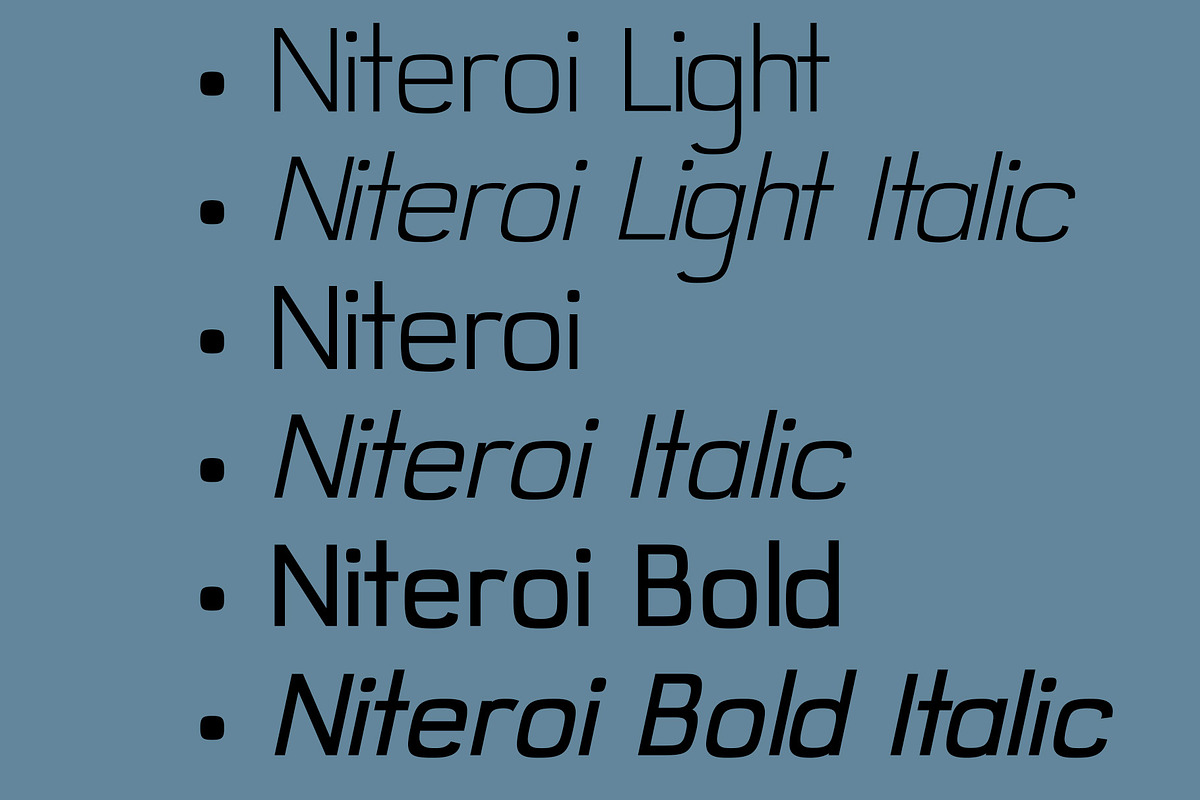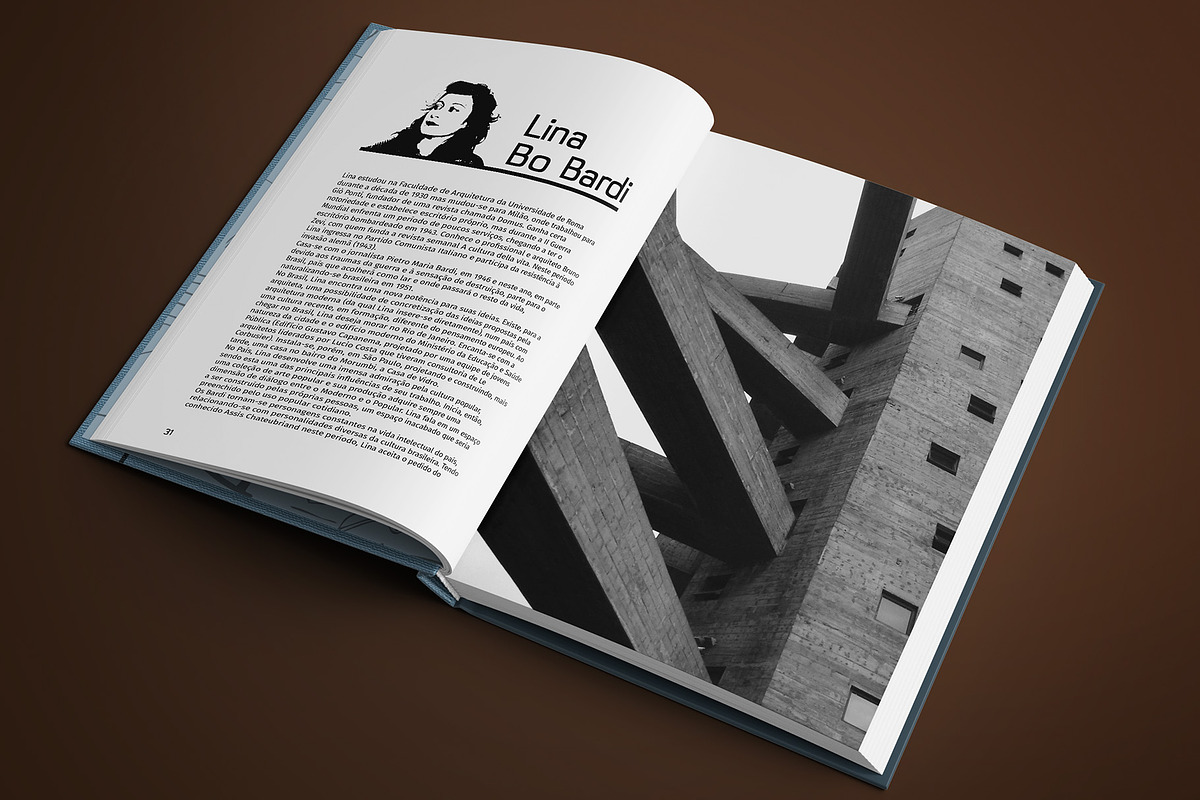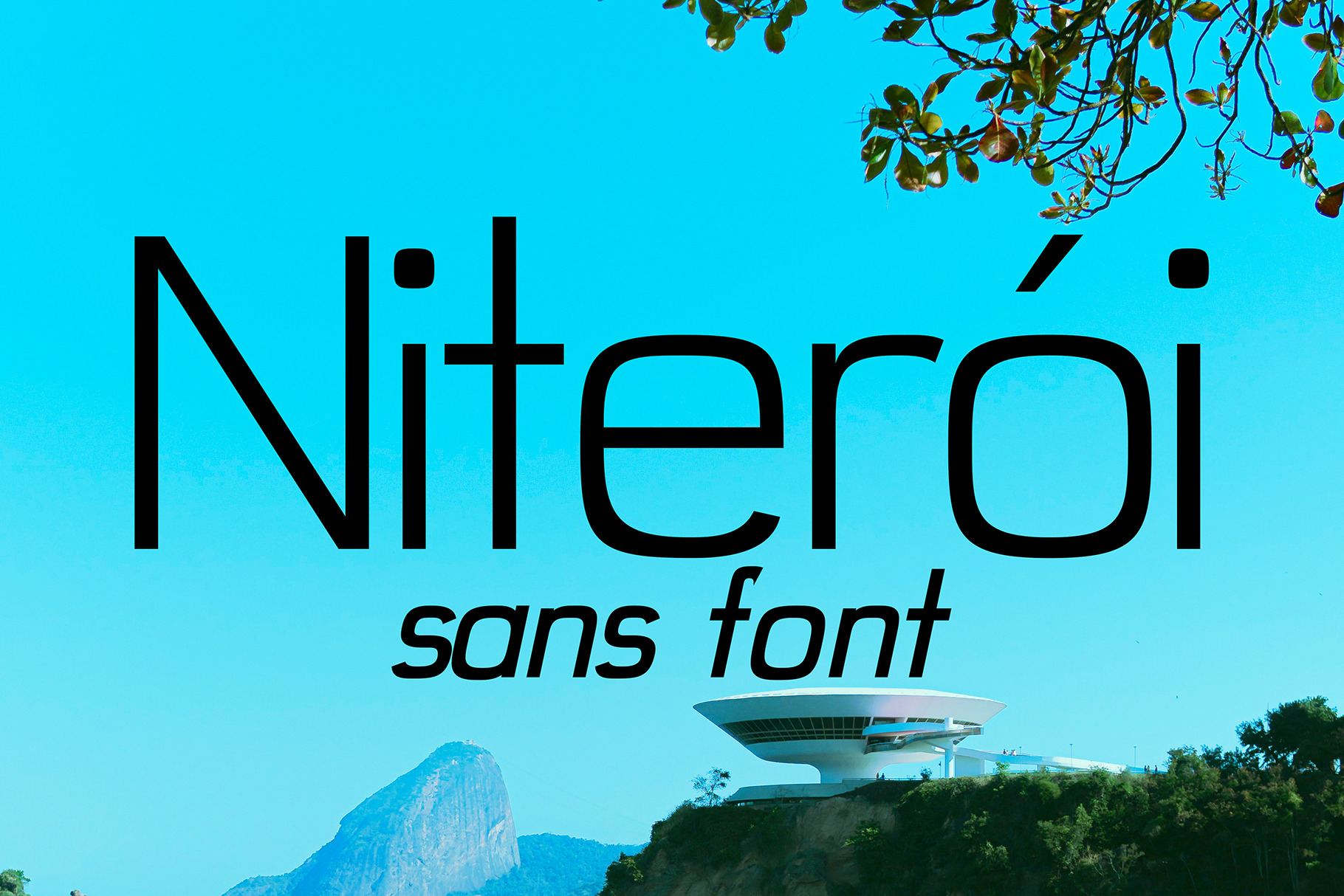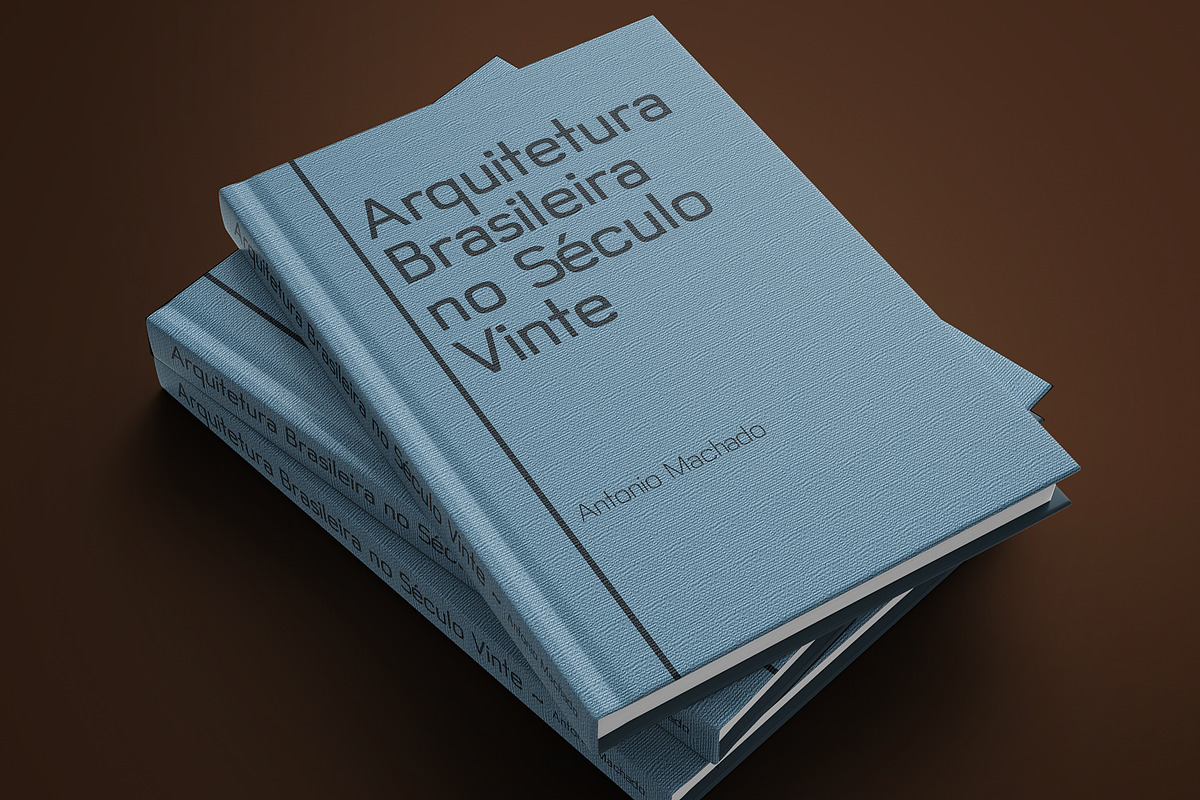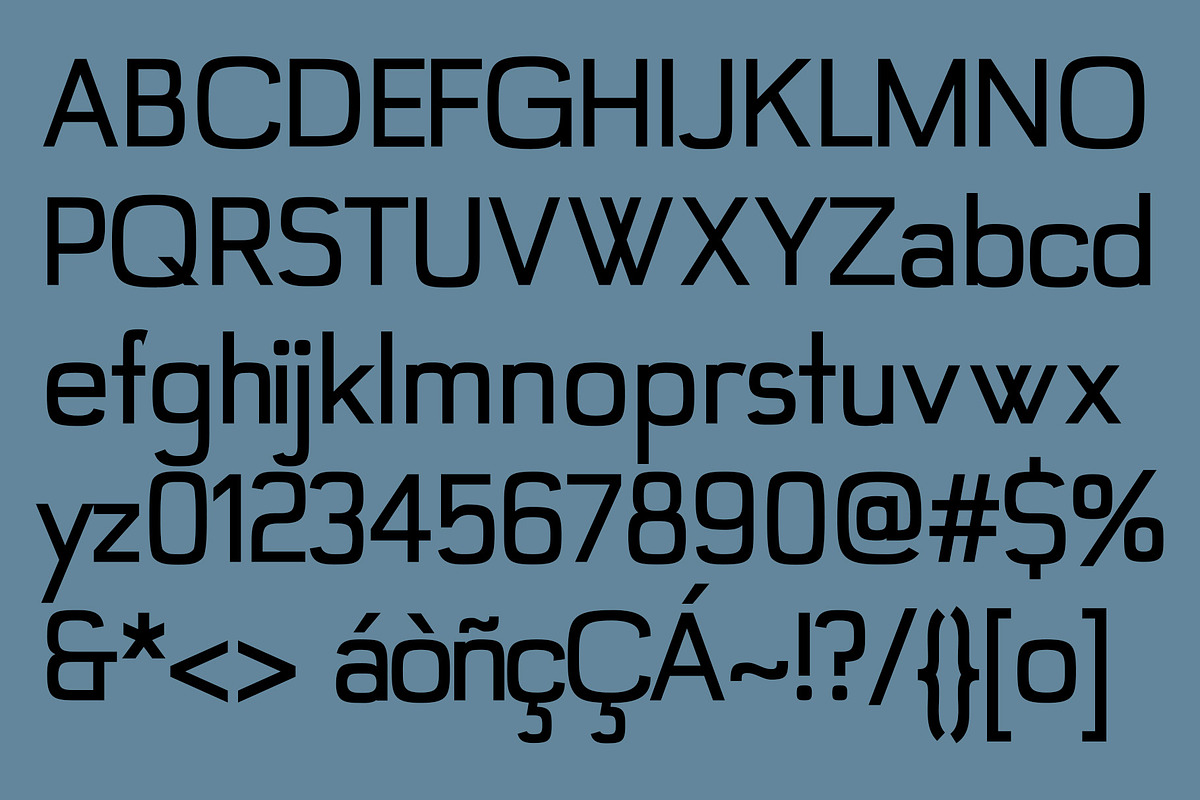
Niterói - sans serif font
~ Stylish / Sleek / Modern ~
Niteroi is a elegant and sophisticated sans serif font. Inspired by the modern Brazilian architecture. It is named after the city o Niteroi in Brazil where is the Niterói Contemporary Art Museum designed by Oscar Niemeyer. Niteroi includes accented characters and symbols.
- Niteroi Light
- Niteroi Light Italic
- Niteroi
- Niteroi Italic
- Niteroi Bold
- Niteroi Bold Italic
USES
Niteroi works great in any packaging branding, logos, magazines, films and for short texts.